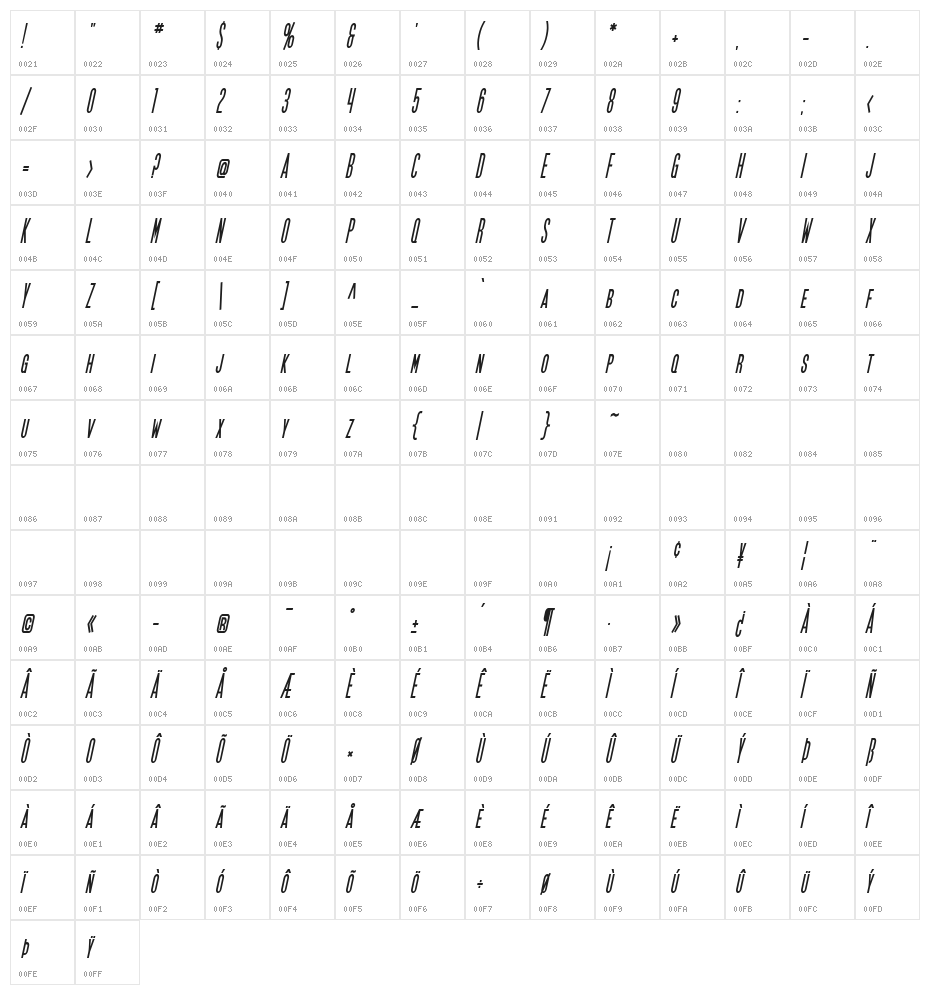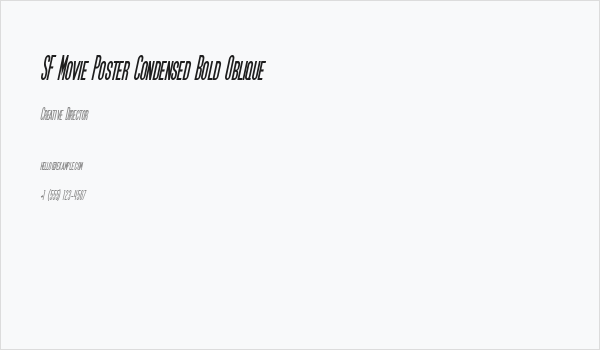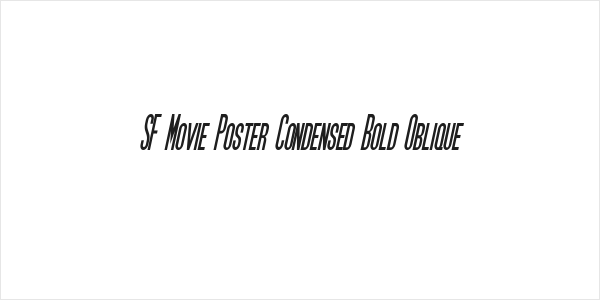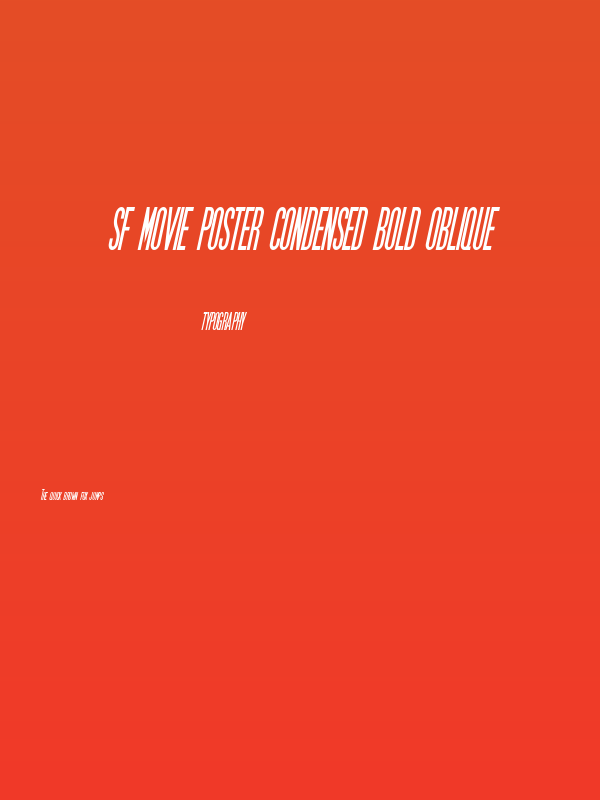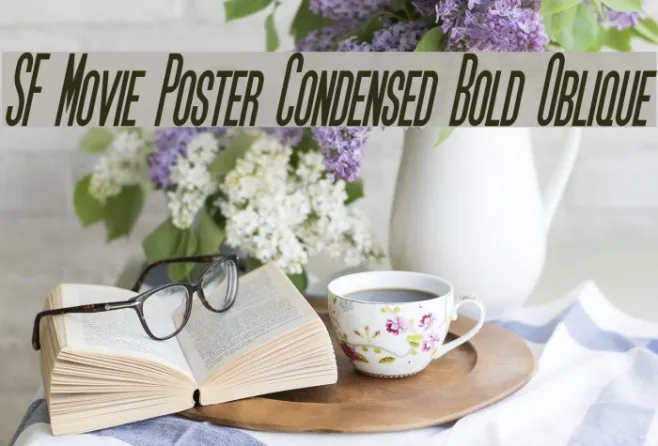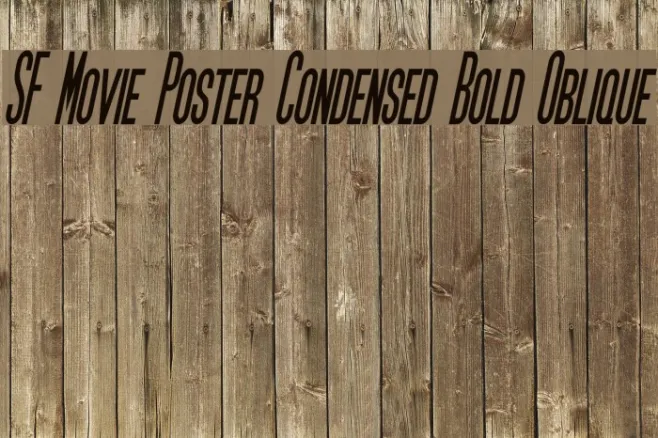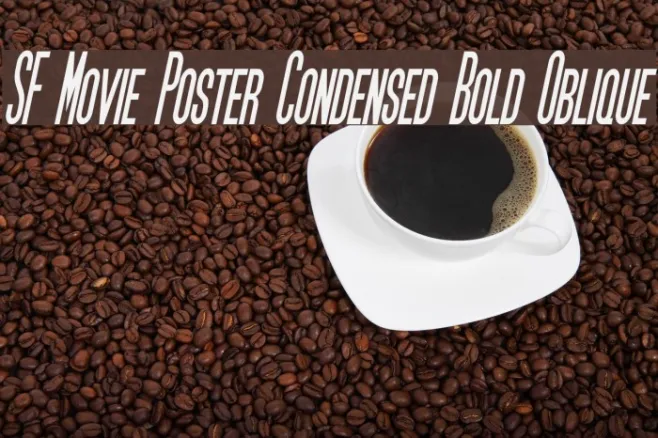
SF Movie Poster Condensed Bold Oblique Font
SF Movie Poster Condensed Bold Oblique Description
This font features a bold and oblique style, characterized by its condensed letterforms and strong presence. The uppercase and lowercase letters maintain a consistent slant, giving the typeface a dynamic and forward-moving appearance. The numerals and special characters follow the same stylistic cues, ensuring uniformity across all glyphs. The condensed nature of the font allows for efficient use of space, making it ideal for settings where space is limited but impact is necessary. The bold weight enhances readability and draws attention, suitable for headlines and titles.
| Use Case | Headlines, Posters, Advertising |
| Proposed Projects | Perfect for movie posters, advertising campaigns, and any project requiring a strong visual impact. |